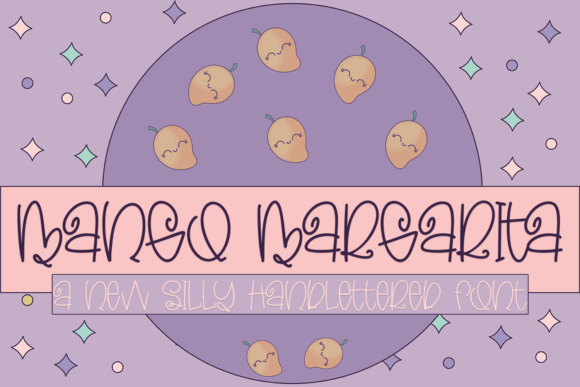
Get ready to add a dash of fun and personality to your creative projects with Mango Margarita, the captivating handwritten font that exudes charm and playfulness! This delightful script font by Cinnamon&Lime breathes life into your words, making them dance off the page with their distinctive flair. Whether you're a seasoned pro or a creative newbie, Mango Margarita is your perfect companion for unleashing your imagination.
Craft Beer Enthusiasts, Rejoice! Mango Margarita was specifically designed to capture the essence of your beloved craft beers. Its playful and spirited style adds character and authenticity to your branding, packaging, and marketing materials, making your craft beer stand out from the crowd. Whether you're designing labels, menus, or social media posts, Mango Margarita will infuse your craft beer brand with an unforgettable charm.
Dive into a World of Creative Possibilities: With Mango Margarita, the creative possibilities are endless. Bring your Cricut or Silhouette projects to life with its whimsical touch or elevate your SVG design business to new heights. Infuse your digital planner designs and Goodnotes apps with a personal flair, making your notes and plans a joy to behold. Transform your website and blog designs with Mango Margarita's unique character, creating a captivating online presence that sparks engagement. Unleash your creativity in print designs, adding a touch of sophistication to magazines, flyers, and more.
Visualize Your Words Taking Center Stage: Envision your headers radiating with personality, as Mango Margarita lends its handwritten appeal to your designs. Imagine motivational quotes and affirmations adorned with Mango Margarita's charm, inspiring and uplifting your social media followers. Picture delicate and enchanting graphics for women's t-shirts and clothing, exuding femininity and grace.